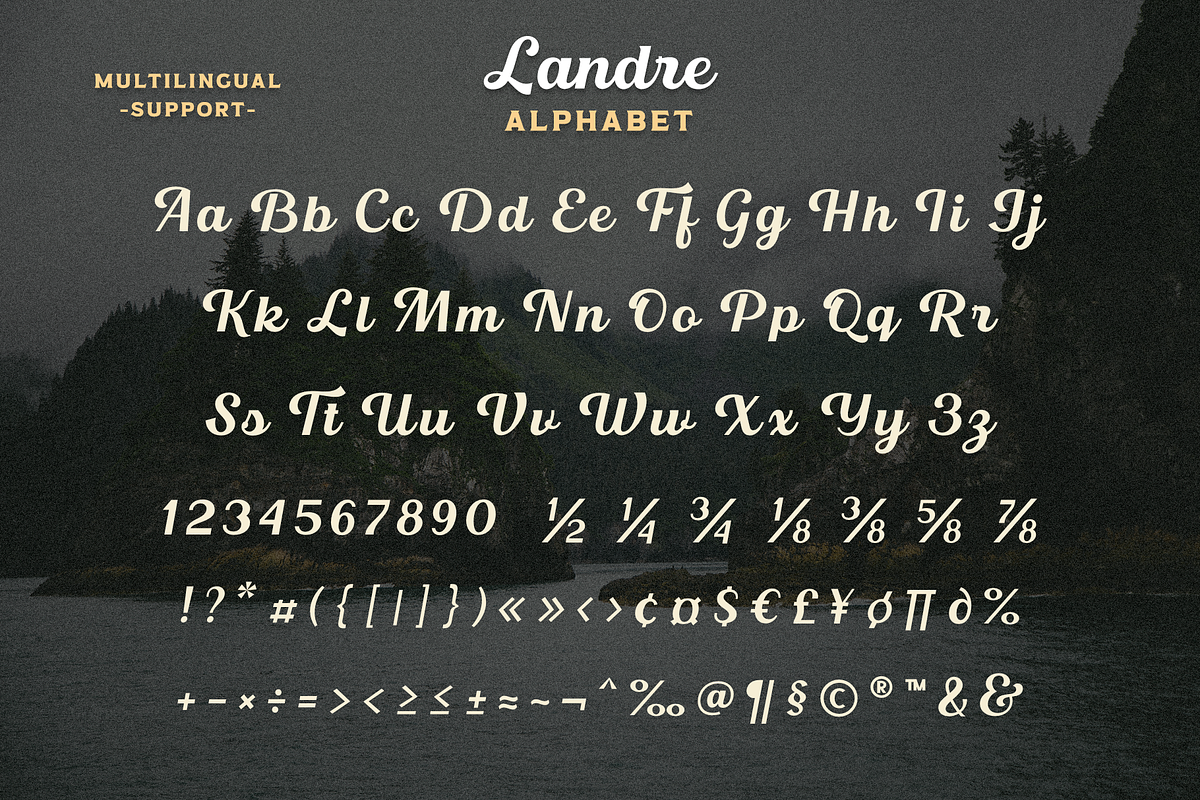
Landre
Landre is a stylish and original multi-functional font that fits perfectly for both modern and vintage design.with it, you can create beautiful logos, labels, templates, signs, highlight text, use it for outdoor advertising, branding, and much more. Also in this font there are stylistic alternates, ligatures and swashes that will make your design even more attractive and interesting. It is easy to use and has OpenType features.
Full alphabet with Uppercase and Lowercase A-Z
Numbers, fractions
Punctuation and symbols
51 Alternates for Uppercase and 89 Alternates for Lowercase, also ampersand
Ligatures and Swashes